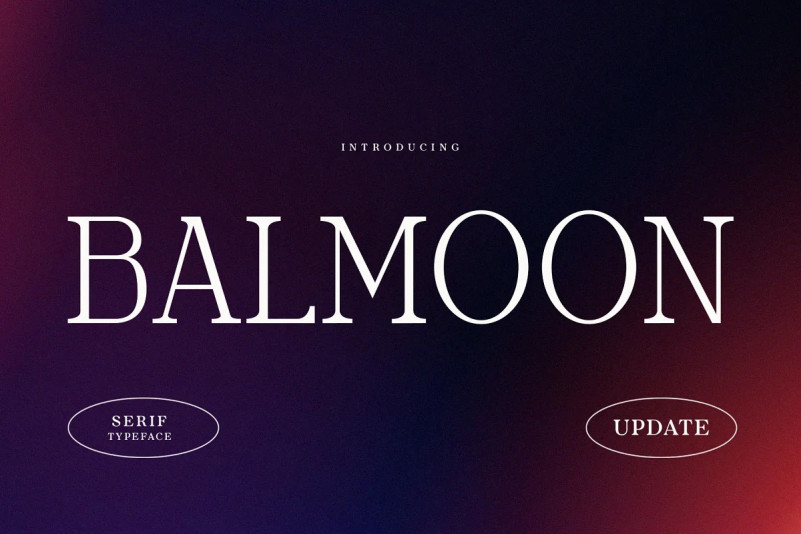
Balmoon Font
Balmoon Font – update version font. Balmoon is a beautiful serif font, here we try to fix some of the letters and characters and punctuation that weren’t neat in the previous version. this time Balmoon comes in a new, neater nuance, but we have removed the ligature and alternate features in this font. but don’t worry, because this balmoon font is still beautiful and neat when used. have fun with the new balmoon font, i hope you like it. Thank you